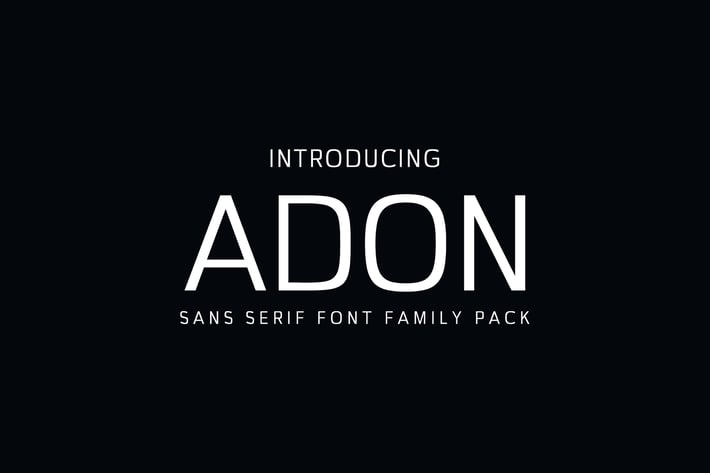
Adon Sans Serif Fonts Family Pack
Adon Sans Serif Font is minimalist and creative font of 4 weights font family. It comes with basic glyphs and support multilingual. Adon is good for making creative templates, stationary, modern designs, logos, headlines, banners and templates etc. It looks gorgeous in all caps with a wide-set spacing if you want to try a classy look, or beautiful on its own in capital and lowercase letters for something completely timeless.
- Regular, Thin, Bold and Extra Bold Weights
Adon Font Features:
- Uppercase Multilingual Letters
- Lowercase Multilingual Letters
- Non English Characters ( Latin Supplement + Latin Extended A)